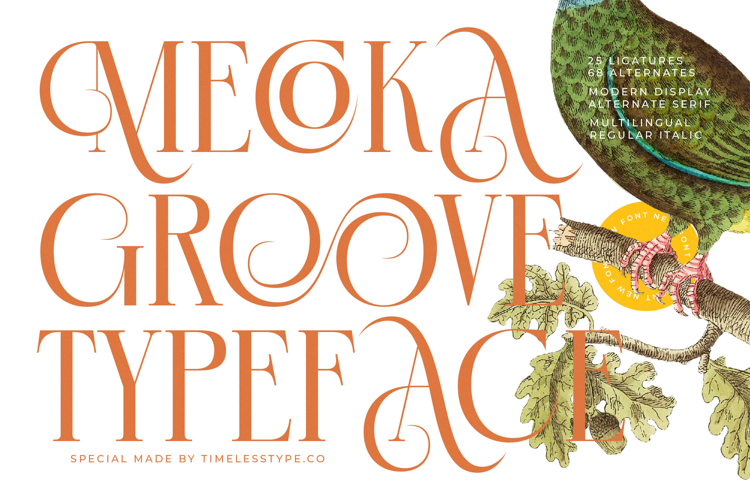
Mecoka Groove - Modern Display Alternate Serif
The Meoka Groove Typeface is a modern display serif that merges classic elegance with contemporary flair, creating a typeface that is both artistic and highly expressive. Its defining features are the bold contrast between thick and thin strokes, the presence of decorative swashes, and the sophisticated ligatures that transform standard text into visually captivating compositions. Each letter carries a strong personality, with curves and flourishes that add a sense of rhythm and movement, making the font ideal for designs where attention and drama are required. This is not a font designed for body text or long reading passages—it is a statement typeface crafted specifically for headlines, titles, and striking visual elements.
Visually, Meoka Groove evokes the nostalgic spirit of 1960s and 1970s vintage aesthetics, yet it remains rooted in modern design principles. This unique combination allows the font to function exceptionally well in projects such as film titles, theatrical posters, concert flyers, or album covers, especially in genres that thrive on a retro-modern vibe like jazz, soul, disco, or indie pop. Its ornate shapes bring a cinematic quality that immediately captures the eye, making it an excellent choice for opening credits, book covers, or high-impact advertising campaigns.